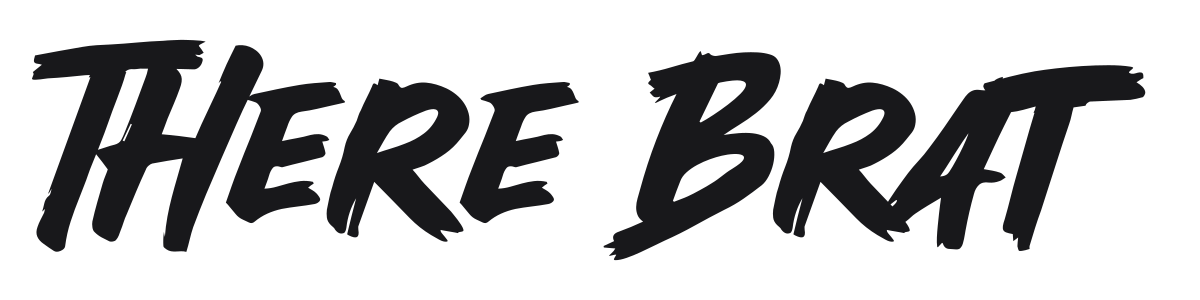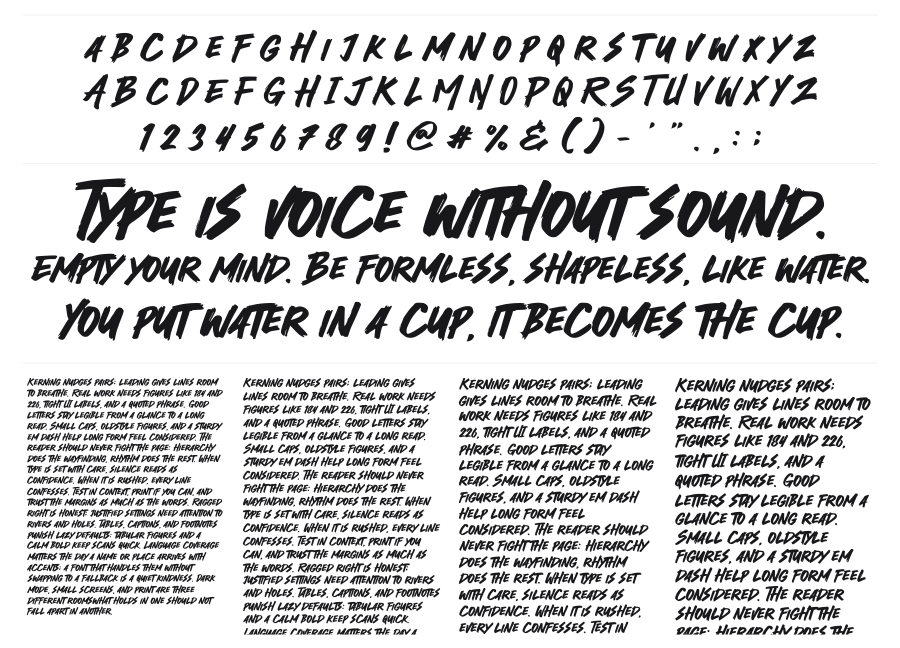
There Brat
There Brat is a bold brush script soaked in raw energy, with heavily textured strokes that mimic fast, gestural brushwork or spray-can lettering. The strong forward slant and bristle-dragged edges give it a deliberately rough, unapologetic attitude. It reads immediately at large sizes and carries an urban, music-culture edge.